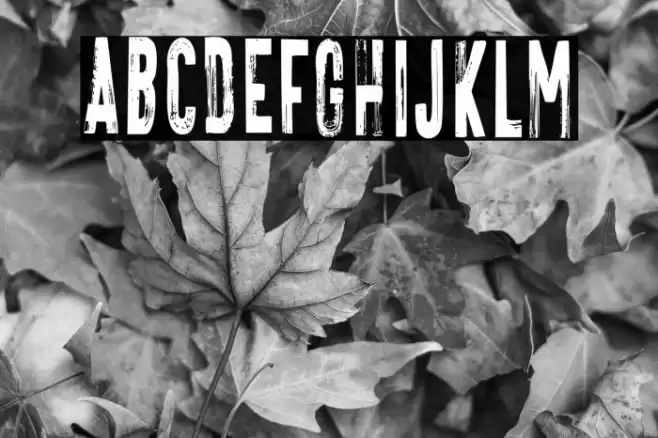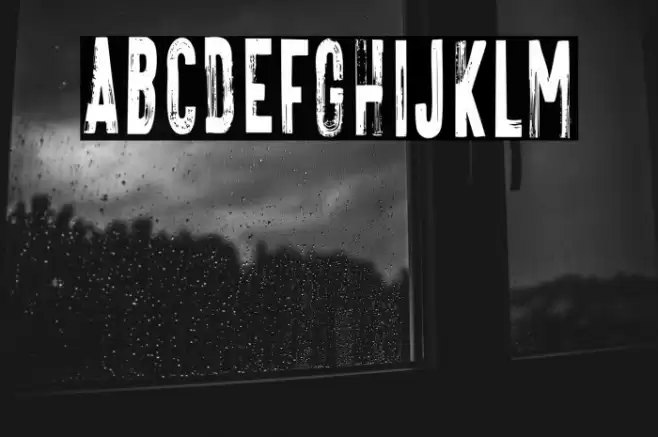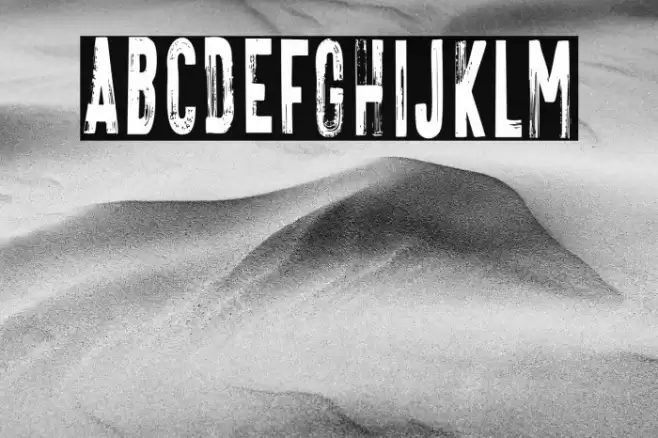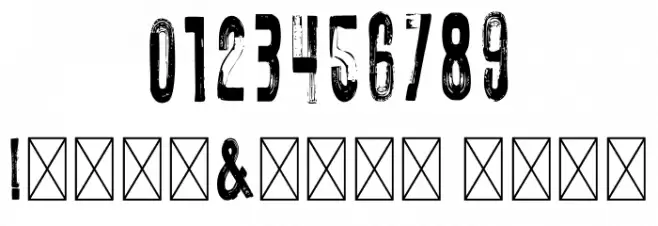
VTKS FREAKIN Regular Font
VTKS FREAKIN Regular Description
This font features a distressed and grunge aesthetic, characterized by rough edges and a worn-out appearance. The uppercase and lowercase letters are bold and impactful, with a textured look that suggests a vintage or industrial feel. The numbers and special characters maintain this rugged style, making it ideal for projects that require a bold statement. The font's unique design elements give it a handcrafted and artistic vibe, perfect for adding an edgy touch to any design.
A distressed, grunge-style font with a bold and textured appearance from Uncategorized fonts.
- Font: VTKS FREAKIN Regular
- Proposed Projects: Ideal for album covers, posters, branding for edgy or alternative products, and any design needing a vintage or industrial touch.
- Overall Style: Vintage, Grunge, Industrial